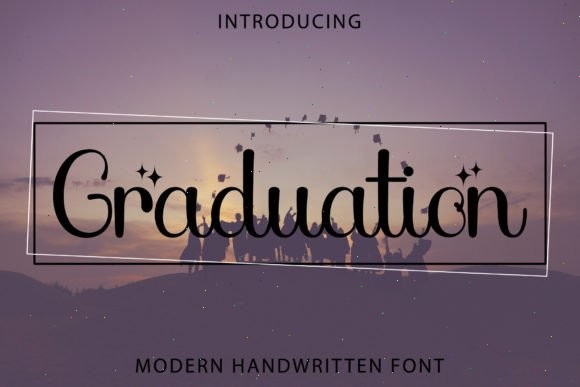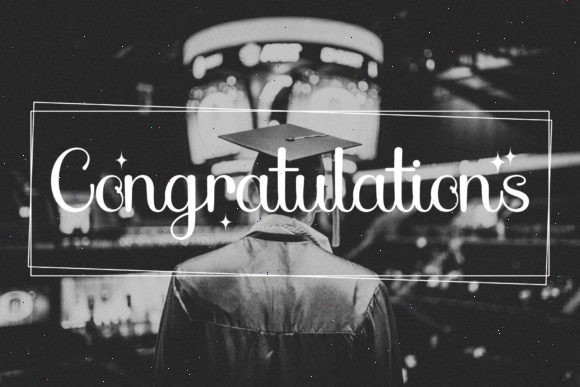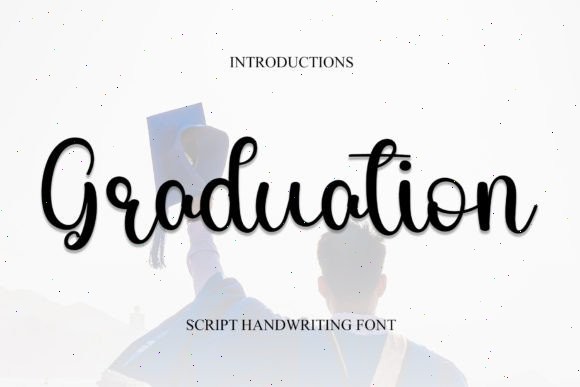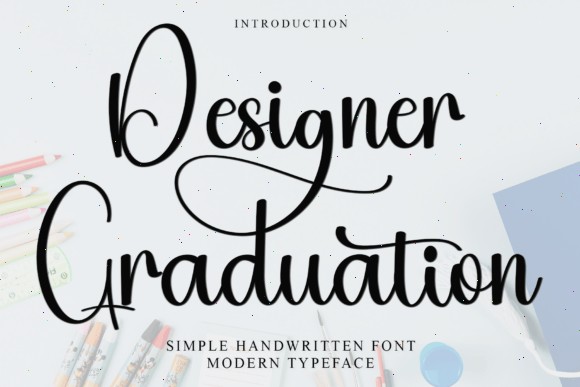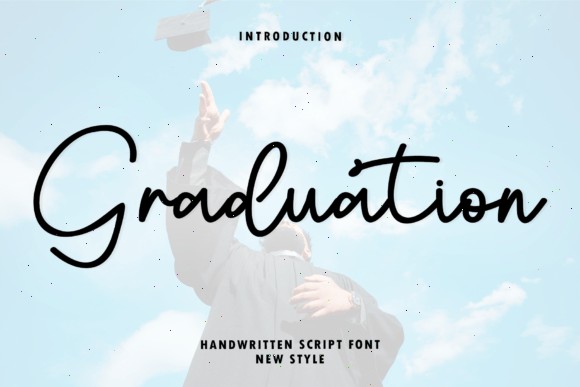
Why Typography Matters for Graduation Designs
Graduation is one of those rare milestones that blends pride, nostalgia, excitement, and ambition into a single unforgettable moment. Whether it is a high school graduation, college commencement, or doctoral ceremony, every visual detail contributes to the atmosphere of celebration. Among those details, typography quietly does some of the heaviest lifting. A graduation announcement with the right font instantly feels polished and memorable, while a poorly chosen font can make even a beautifully designed invitation look rushed or generic.
Elegant graduation fonts create emotional cues before anyone reads a single word. Flowing script fonts suggest sophistication and achievement. Modern handwritten styles add warmth and personality. Clean serif pairings introduce authority and timelessness. Think about it like dressing for the occasion. You would not wear flip-flops to a formal graduation ceremony, and your typography should follow the same logic. Fonts communicate tone in seconds.
In today’s social-media-driven world, graduation branding has become even more important. Students and families create custom party templates, Instagram graphics, photo booth props, memory books, and personalized merchandise. Elegant fonts help unify these visuals into a cohesive celebration theme. One carefully selected typeface can turn a simple Canva template into something that looks professionally designed.
8 Best Elegant Graduation Fonts
1. Graduation Font by Andikastudio
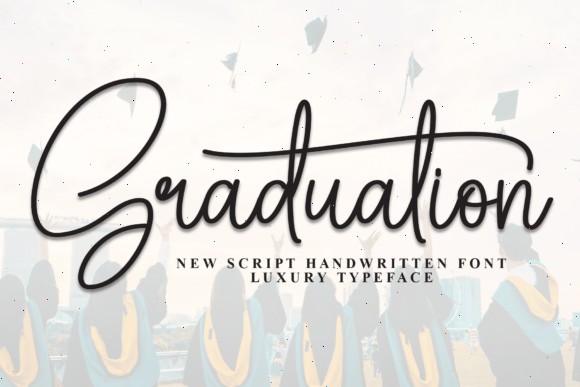
The Graduation Font by Andikastudio stands out because of its luxurious handwritten flow and dramatic swashes. It immediately feels celebratory and sophisticated without becoming overly formal. According to the specimen description, this font is designed to add “a touch of sophistication” through graceful flowing typography and elegant swashes.
What makes this font especially effective for graduation designs is its versatility. It works beautifully on invitations, welcome signs, memory books, and thank-you cards. The beginning and ending swashes create visual movement that draws attention naturally to names and headlines. Imagine seeing “Class of 2026” written in this font across a gold-accented invitation—it instantly feels upscale.
2. Graduation Monoline Script
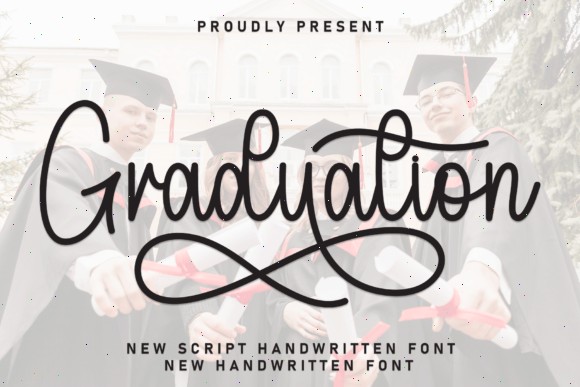
The Graduation Monoline Script font captures prestige beautifully. The specimen specifically describes it as a “sophisticated and fluid monoline script” with sweeping interlocking flourishes. That description perfectly reflects its polished personality.
Monoline scripts are incredibly popular in luxury branding because their consistent stroke thickness creates clean elegance. This particular graduation font feels refined enough for university diplomas yet warm enough for personal party invitations. It has a rhythmic flow that makes headlines look professionally lettered.
This font works exceptionally well for:
- Graduation certificates
- Yearbook covers
- Ceremony programs
- Elegant event signage
- Senior photo overlays
Because the flourishes are controlled rather than chaotic, the font maintains readability even at medium sizes. That is critical for invitations and announcement cards where readability matters just as much as visual beauty.
The monoline style also photographs beautifully in digital mockups and social media graphics. On Instagram graduation announcements, it creates a clean, modern look that feels trendy without becoming temporary or gimmicky.
3. Graduation Brush Font
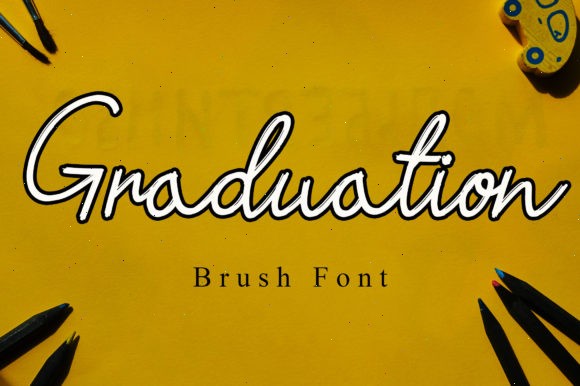
The Graduation Brush Font offers a more expressive and youthful energy while maintaining elegance. It is described as a delicate handwritten font with balanced letters and versatile styling.
Brush fonts add personality because they mimic natural hand-painted strokes. This makes them ideal for graduation party posters, custom T-shirts, cake toppers, and social media graphics. Unlike formal calligraphy fonts, brush scripts feel energetic and celebratory.
One reason this font stands out is emotional authenticity. It feels personal, almost like a handwritten note from a friend or family member. That emotional warmth works especially well for graduation parties where the goal is celebration rather than strict formality.
This font is especially strong for:
- Graduation party flyers
- Instagram reels covers
- Personalized gifts
- DIY Cricut projects
- Photo booth props
Because brush fonts naturally command attention, they work best when paired with simpler secondary fonts. Too many decorative typefaces together can overwhelm a design quickly.